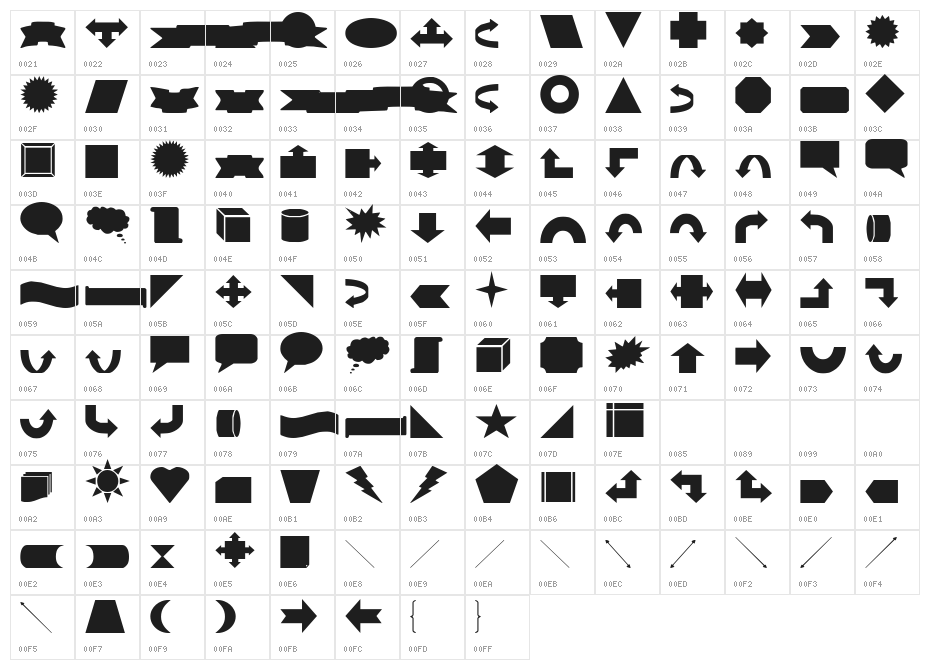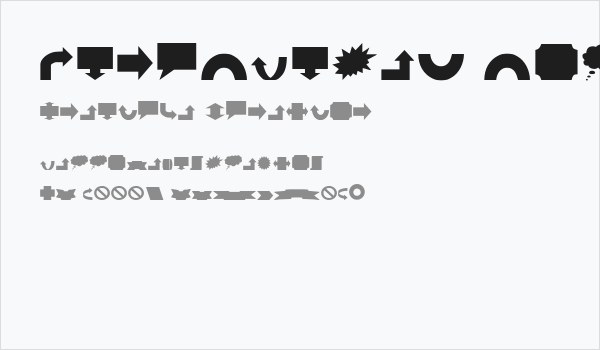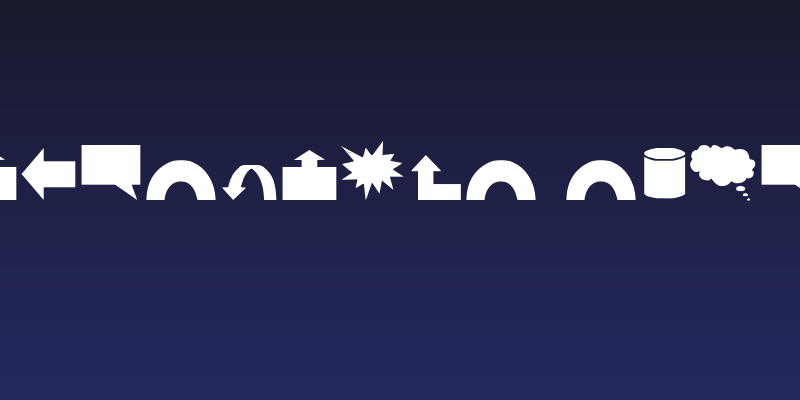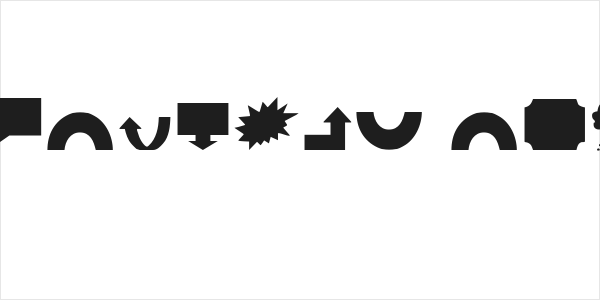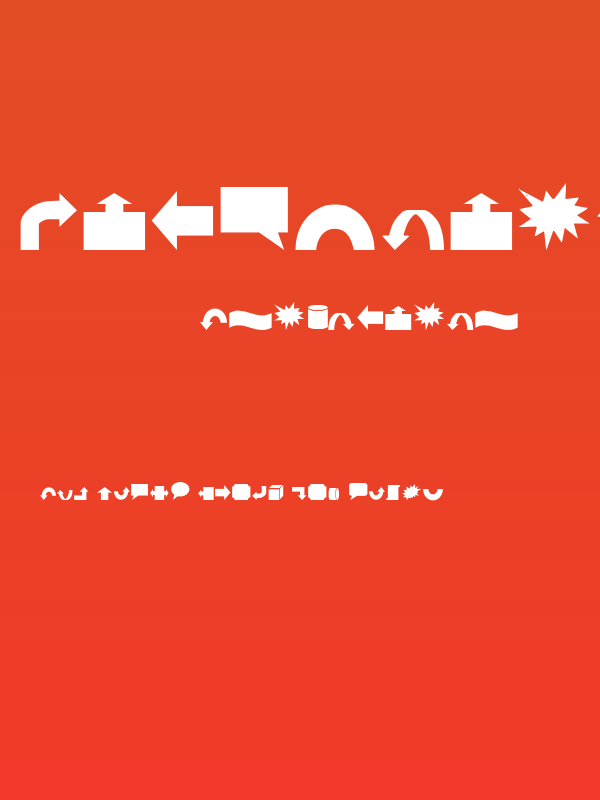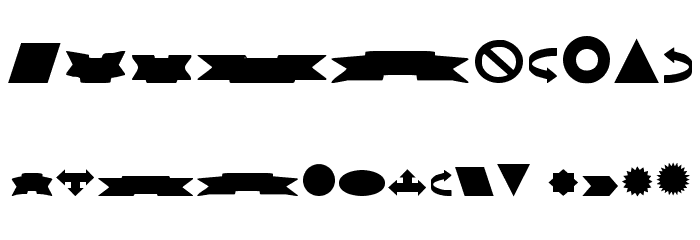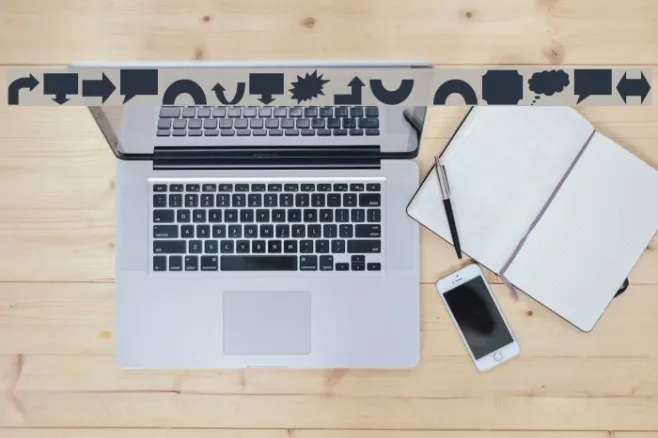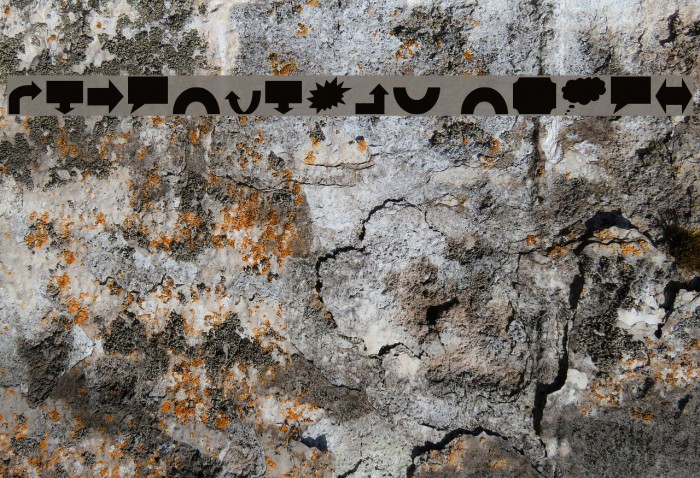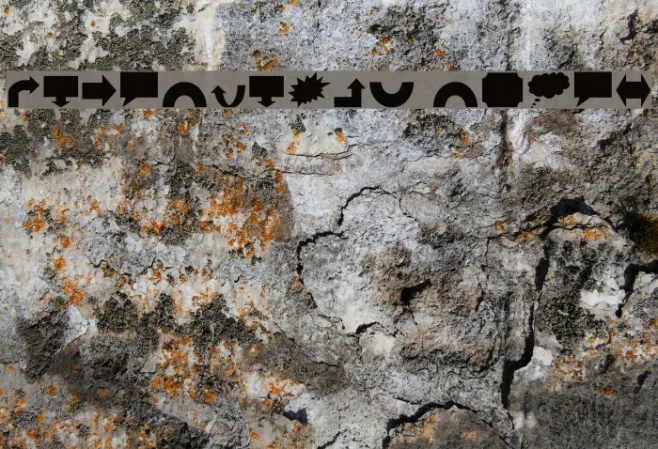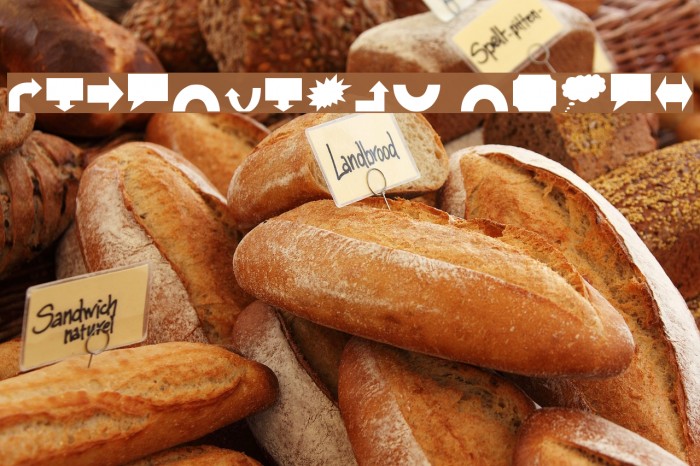
VariShapes Solid Font
VariShapes Solid Description
This collection features a diverse array of solid shapes and symbols, each with a bold and striking appearance. The set includes arrows, speech bubbles, geometric shapes, and various abstract forms, all rendered in a solid, filled style. The shapes are designed to be versatile, suitable for a range of design applications. The boldness of the shapes ensures they stand out, making them ideal for attention-grabbing designs. The consistent solid fill across all shapes provides a cohesive look, while the variety in form offers flexibility in use.
| Use Case | Logos, Icons, Infographics |
| Proposed Projects | Ideal for infographics, educational materials, signage, and creative graphic design projects. |